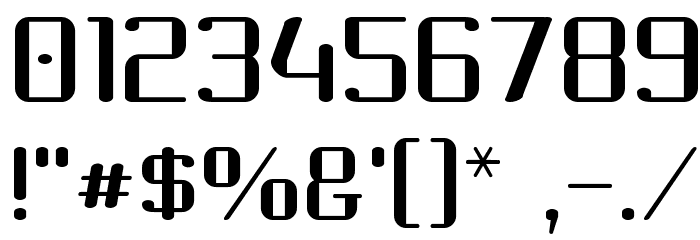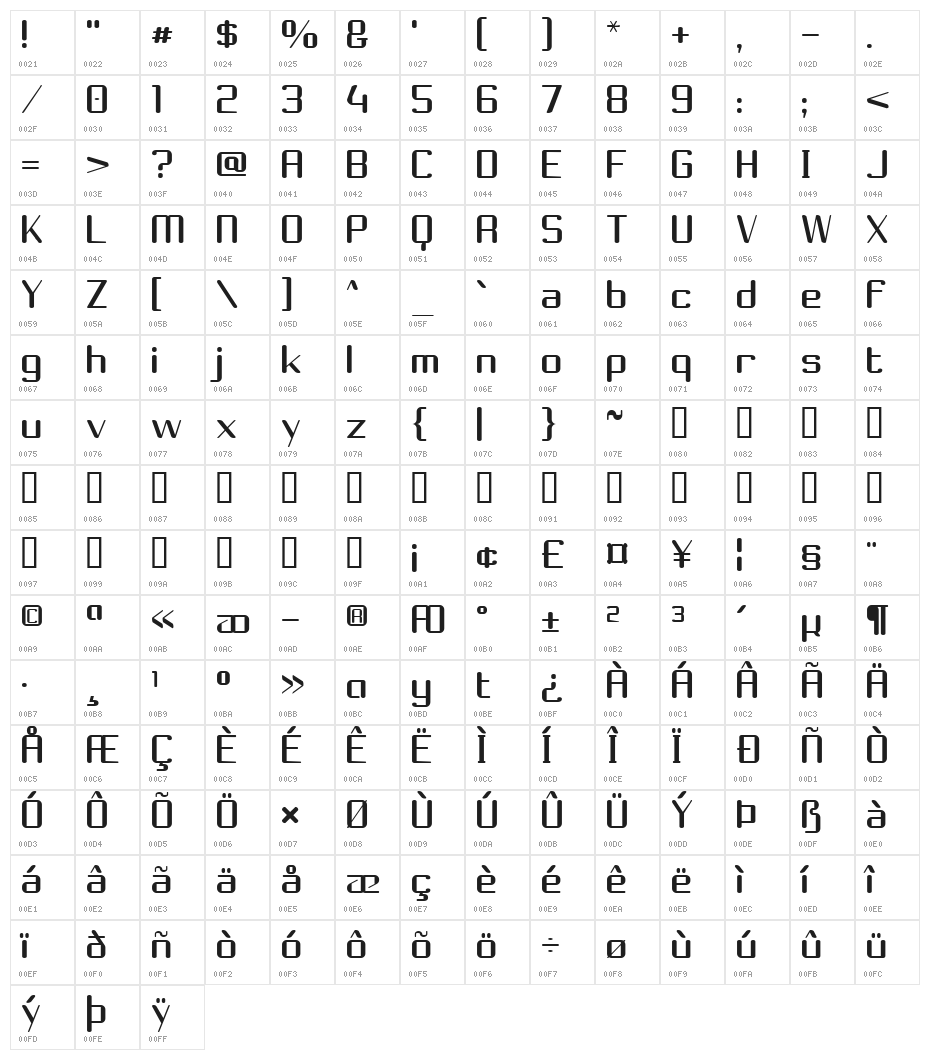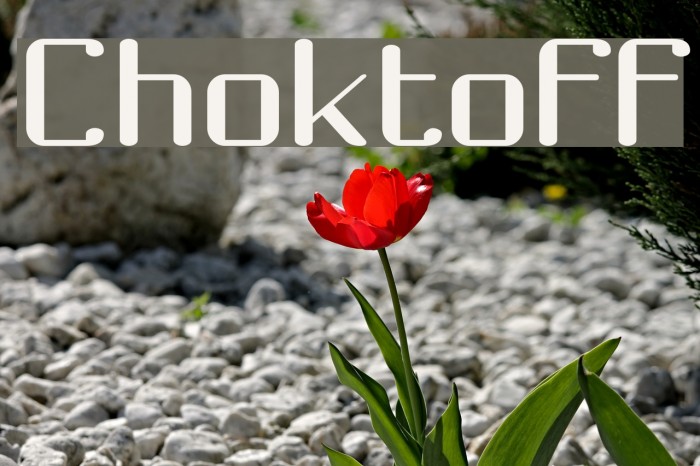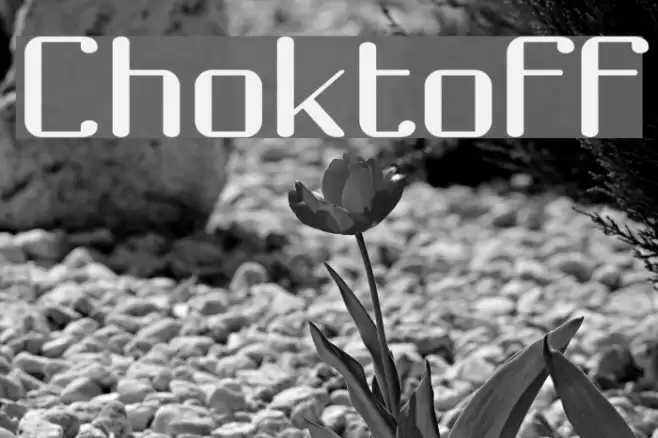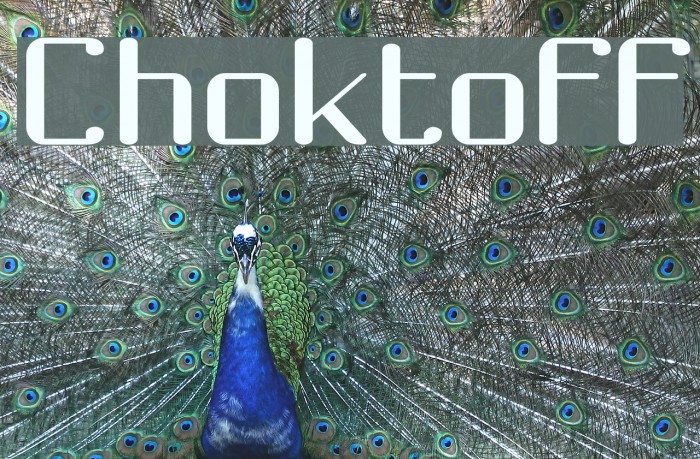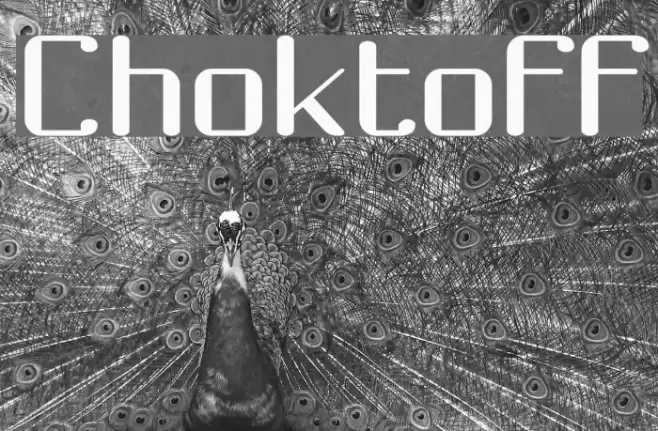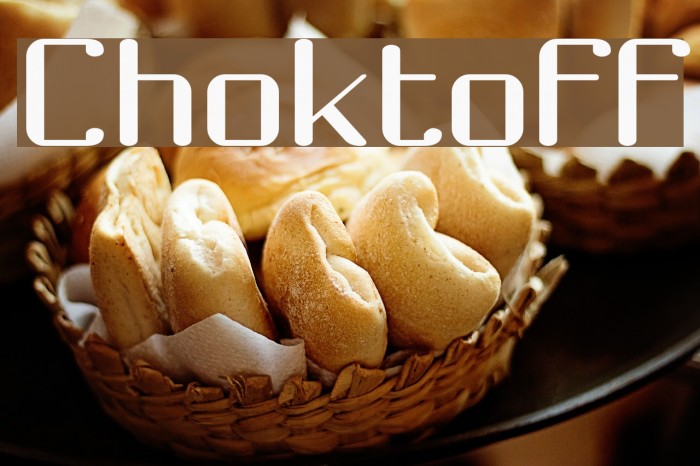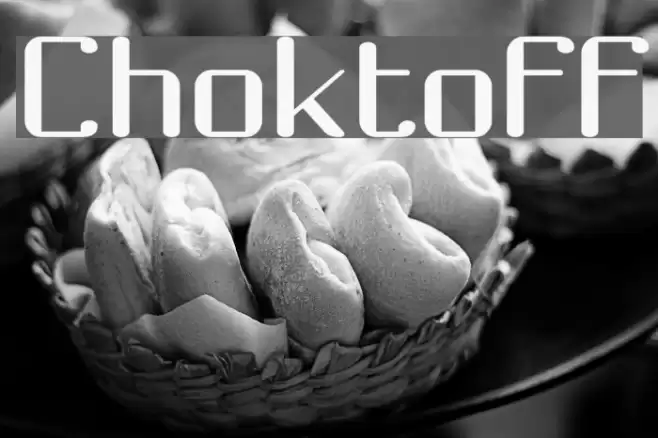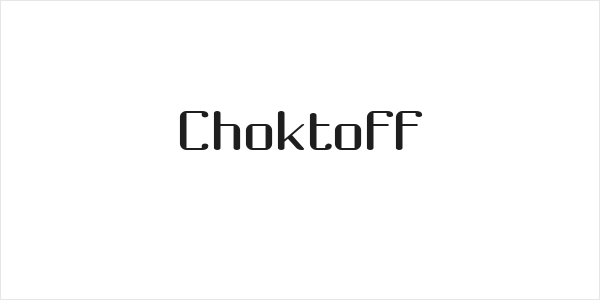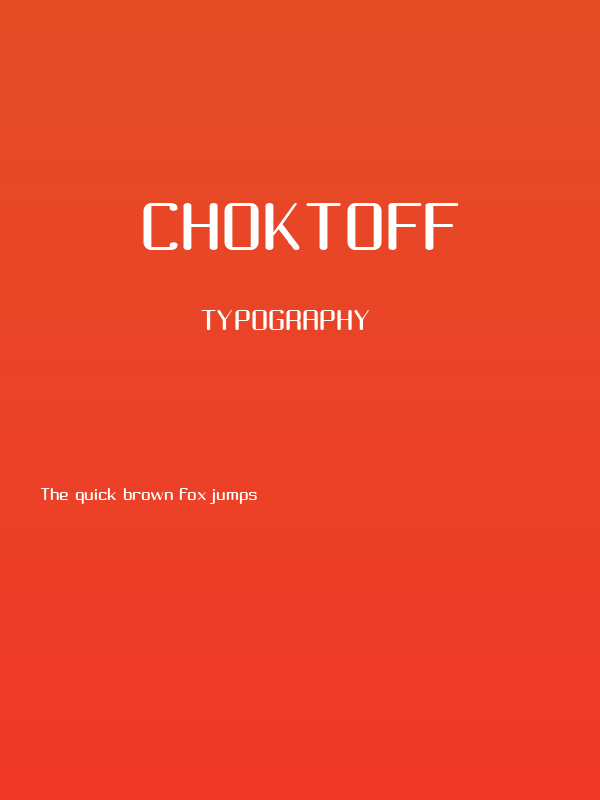
Choktoff Font
Choktoff Description
This font features a modern and sleek design with rounded edges and a geometric structure. The characters are uniformly constructed, providing a clean and futuristic appearance. The uppercase letters are bold and assertive, while the lowercase letters maintain a consistent flow with slightly rounded terminals. The numerals are distinct and easy to read, making them suitable for digital displays. Special characters are well-integrated, maintaining the overall aesthetic of the font. The design is minimalistic yet impactful, making it versatile for various applications.
| Use Case | Headlines, Logos, Digital Displays |
| Proposed Projects | Ideal for tech branding, digital interfaces, modern advertising, and futuristic designs. |